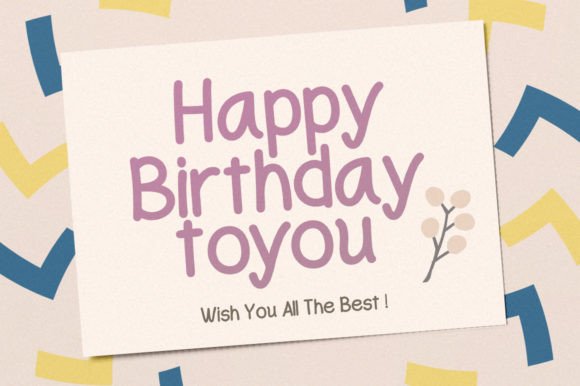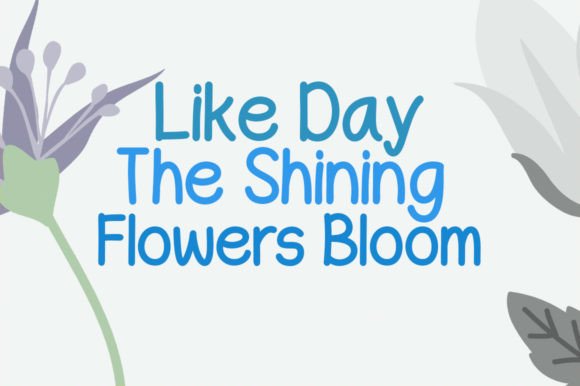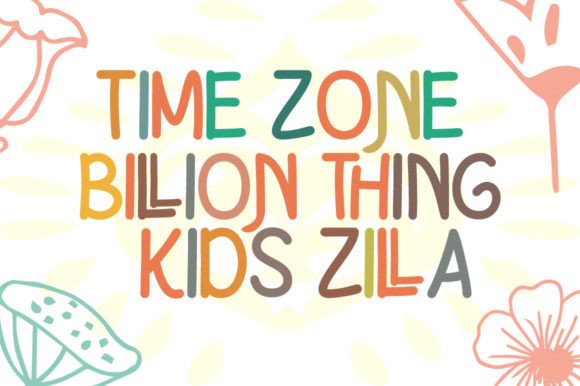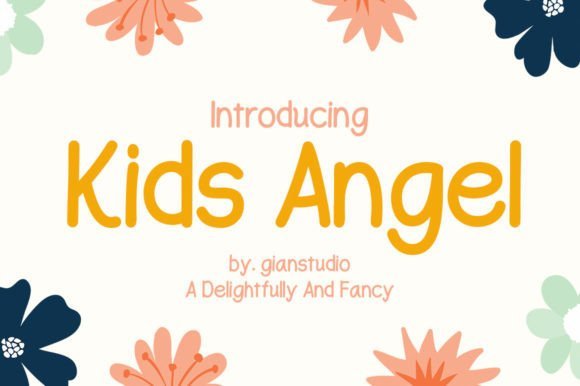
Introduction to Kids Angel Font
Introducing the Kids Angel Font inspired by creative children’s writing.
Combining hand-drawn style with a modern touch Kids Angel comes with a ligature alternative that you can use to give your project more options.
Key Features of Kids Angel Font
Why Choose Kids Angel Font?
Kids Angel Font offers exceptional quality and versatility, making it a valuable addition to your design toolkit. Whether you’re creating for personal projects or commercial use, Kids Angel Font delivers professional results.